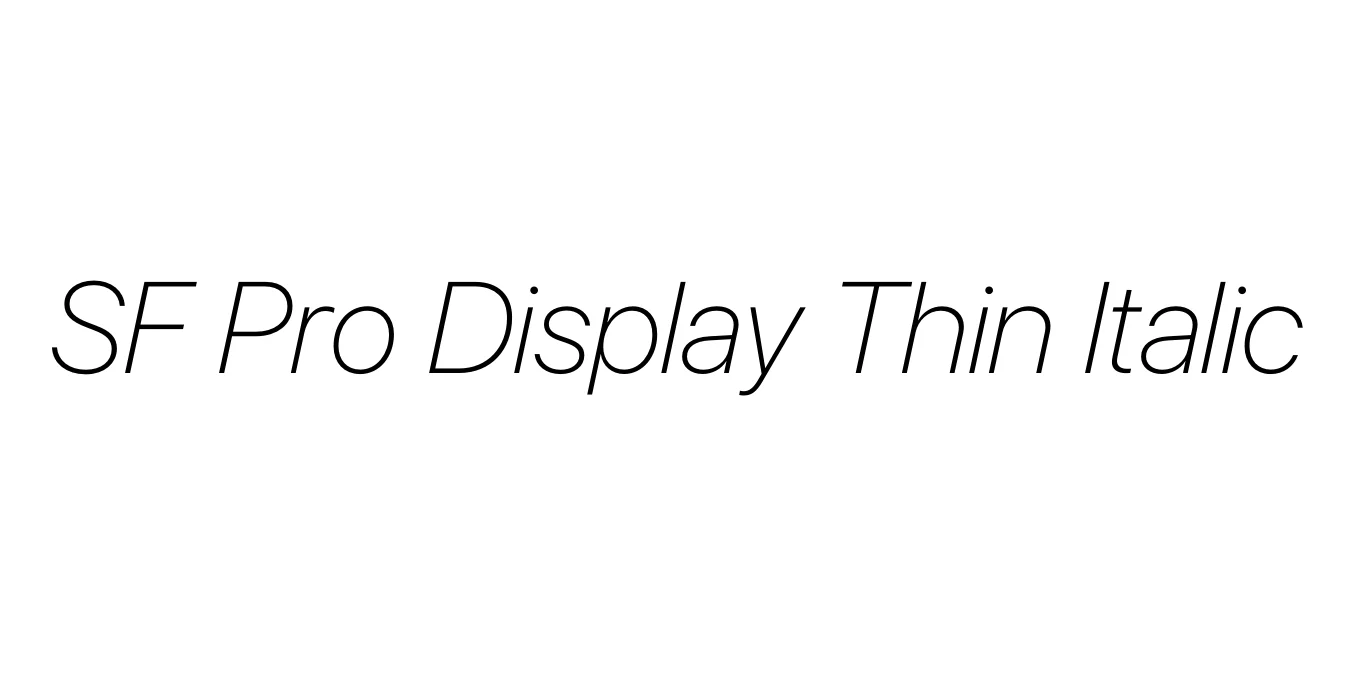
SF Pro Display Thin Italic
Designed by Apple Inc.
SF Pro Display Thin Italic is part of the San Francisco font family, the flagship typeface system developed by Apple to ensure consistency and legibility across its various software platforms. Introduced to replace Helvetica Neue, this neo-grotesque sans-serif provides a neutral yet distinct aesthetic that adapts fluidly to modern digital environments. The Thin Italic weight specifically emphasizes elegance and a lightweight feel, making it ideal for high-resolution displays where fine details are preserved.
As a Display variant, this font is engineered for use at sizes 20 points or larger. It features tighter tracking and more refined stroke weights compared to the Text version, ensuring that large-scale typography looks sophisticated and deliberate. This specific style is often used in Apple's marketing and interface headers to convey a sense of precision, innovation, and minimalist luxury.
SF Pro Display Thin Italic Best Uses
Perfect for high-end fashion magazine headlines and minimalist layout designs.
Ideal for hero sections, large typographic statements, and modern landing pages.
Suited for luxury brand identities that require a sleek and professional appearance.
Excellent for header titles in iOS-style application interfaces.